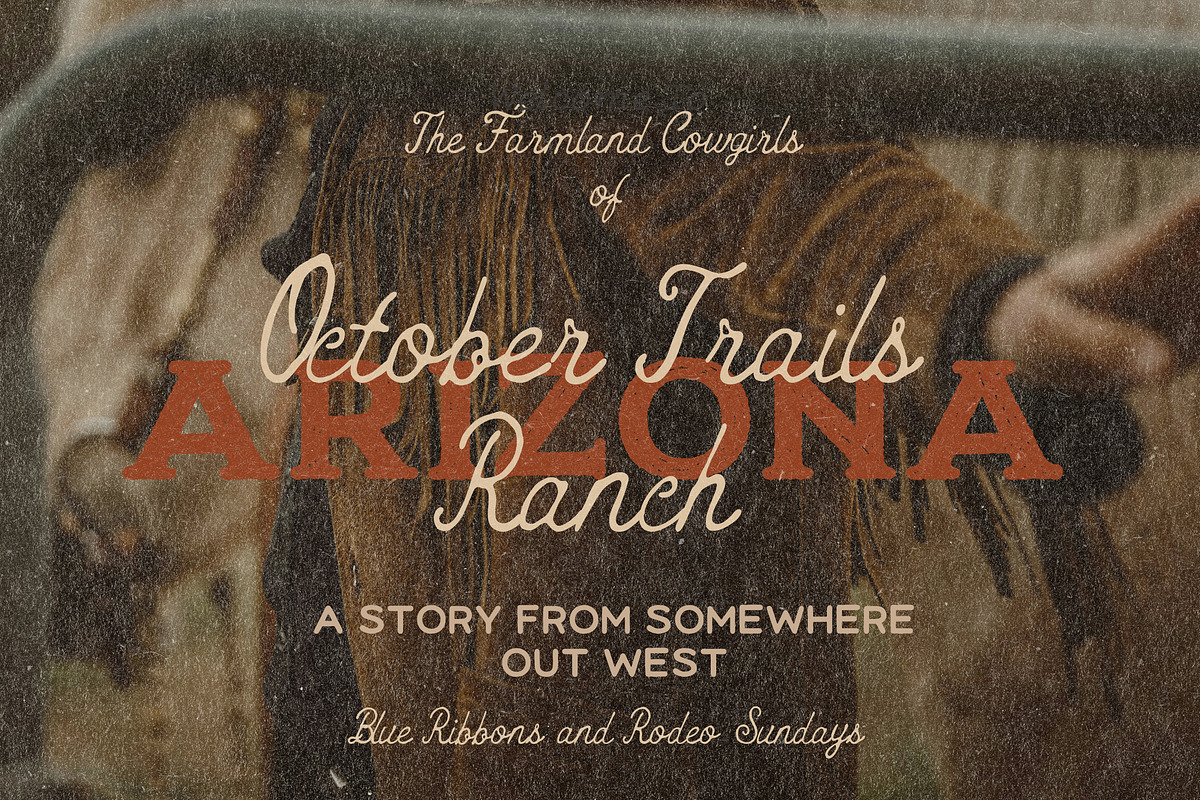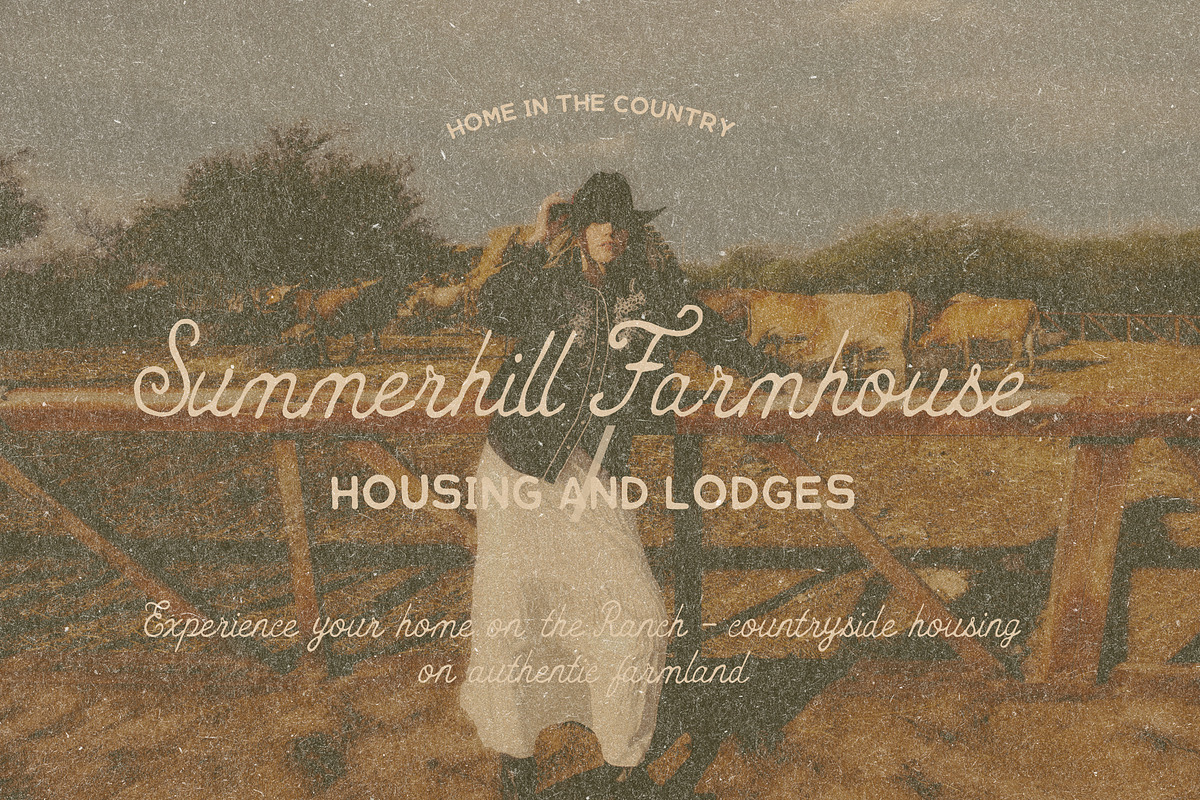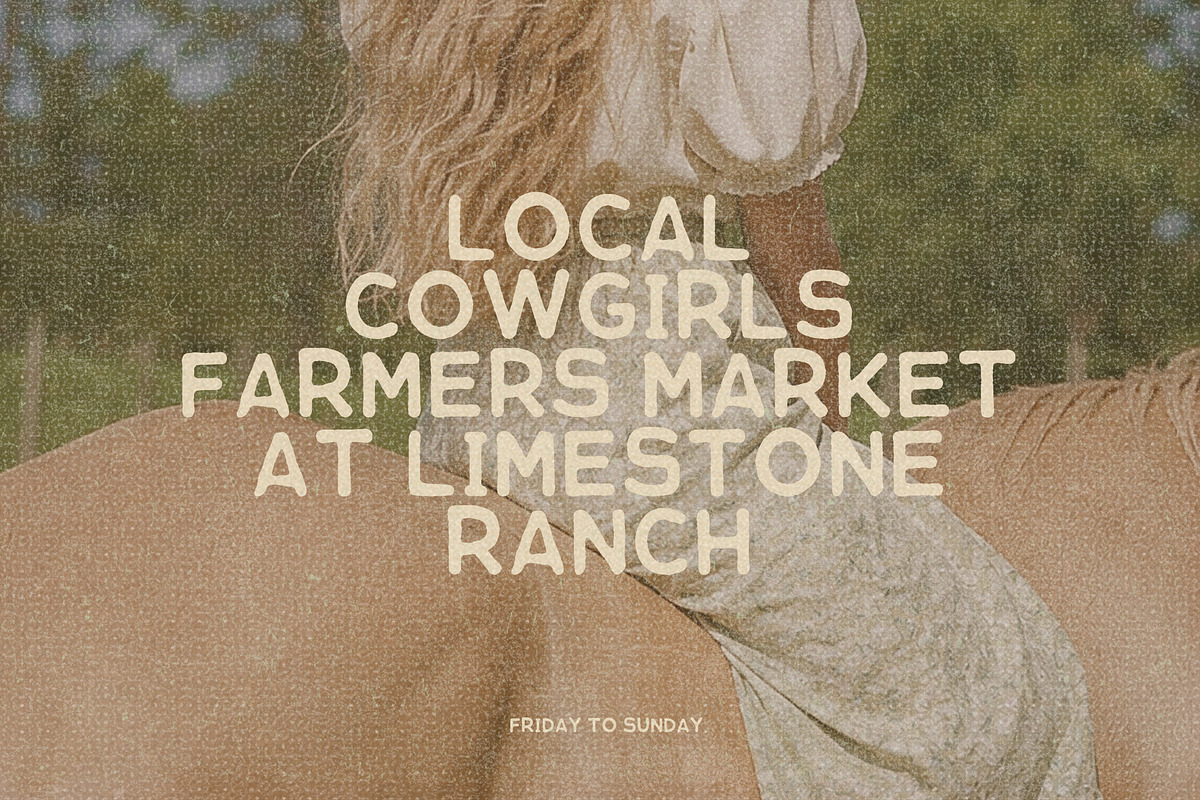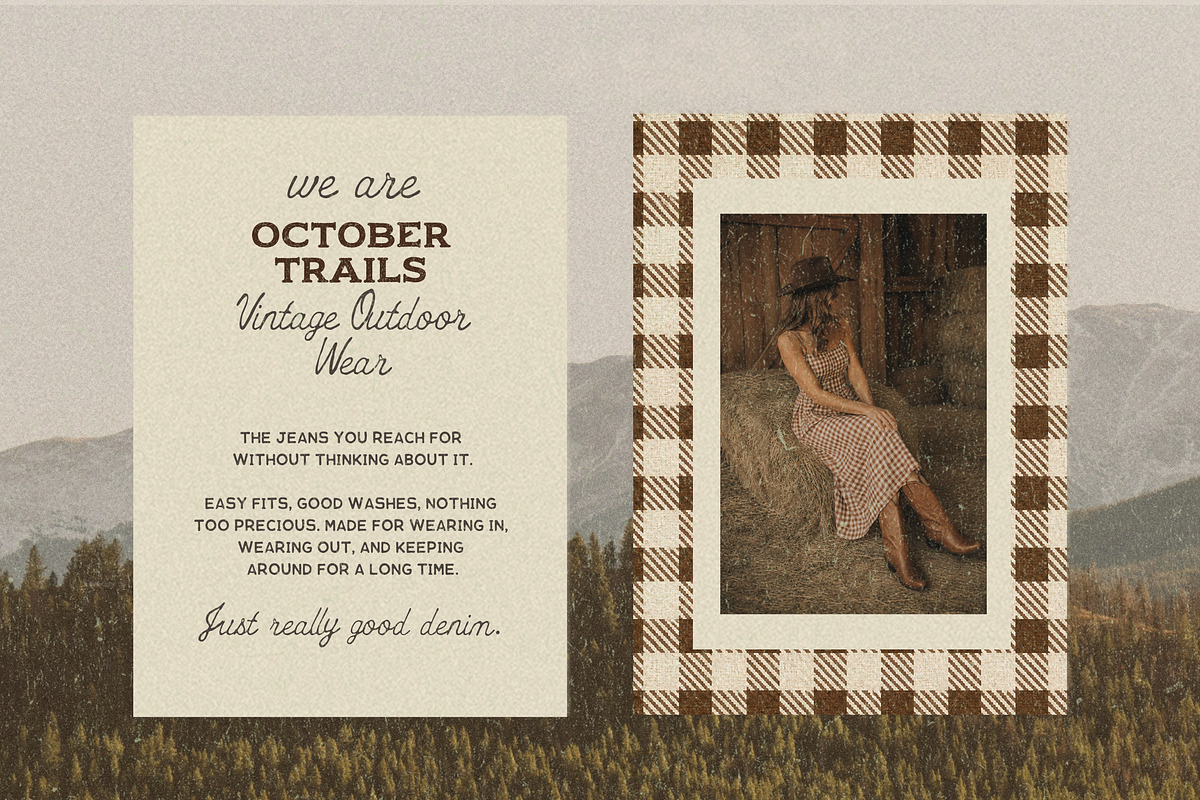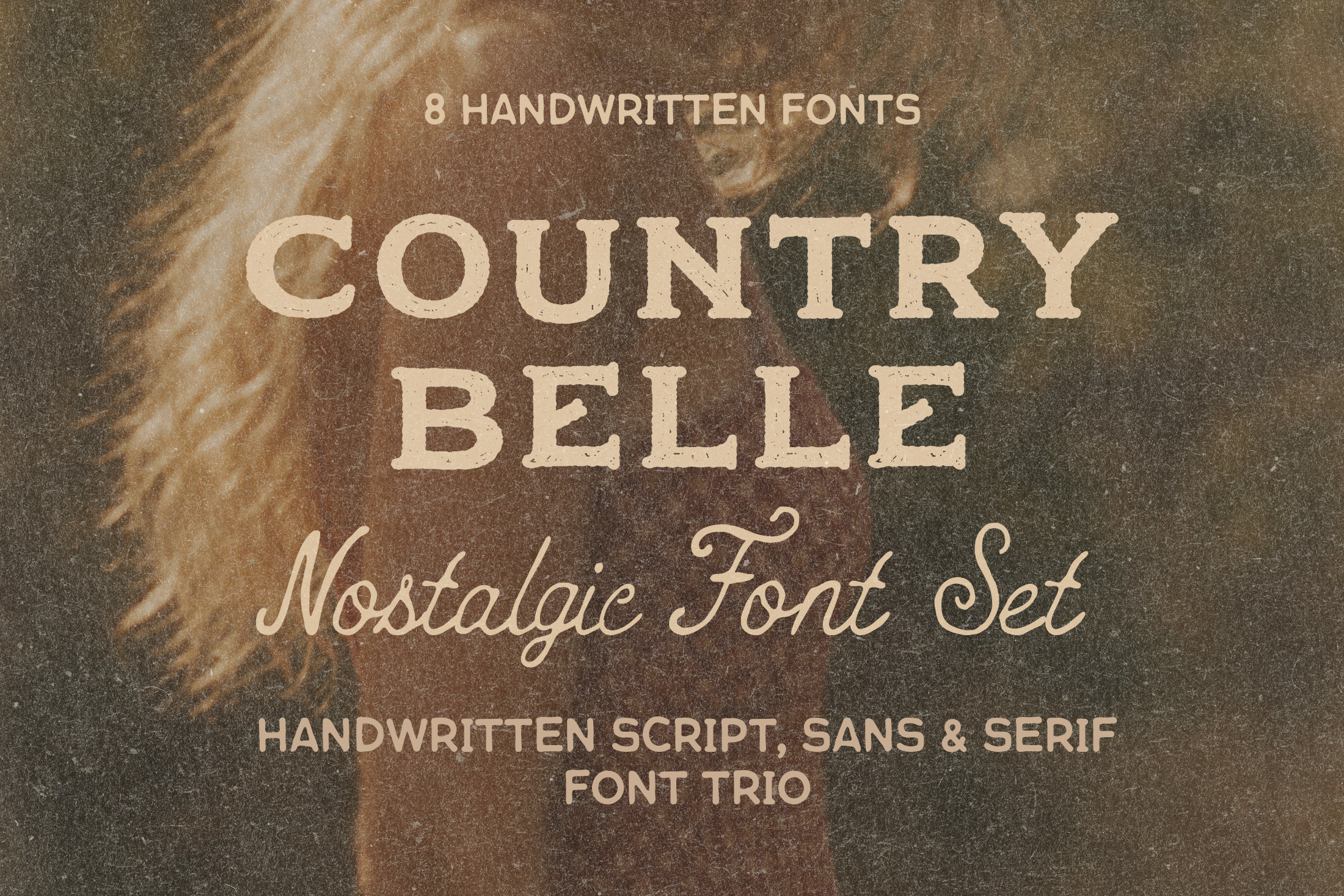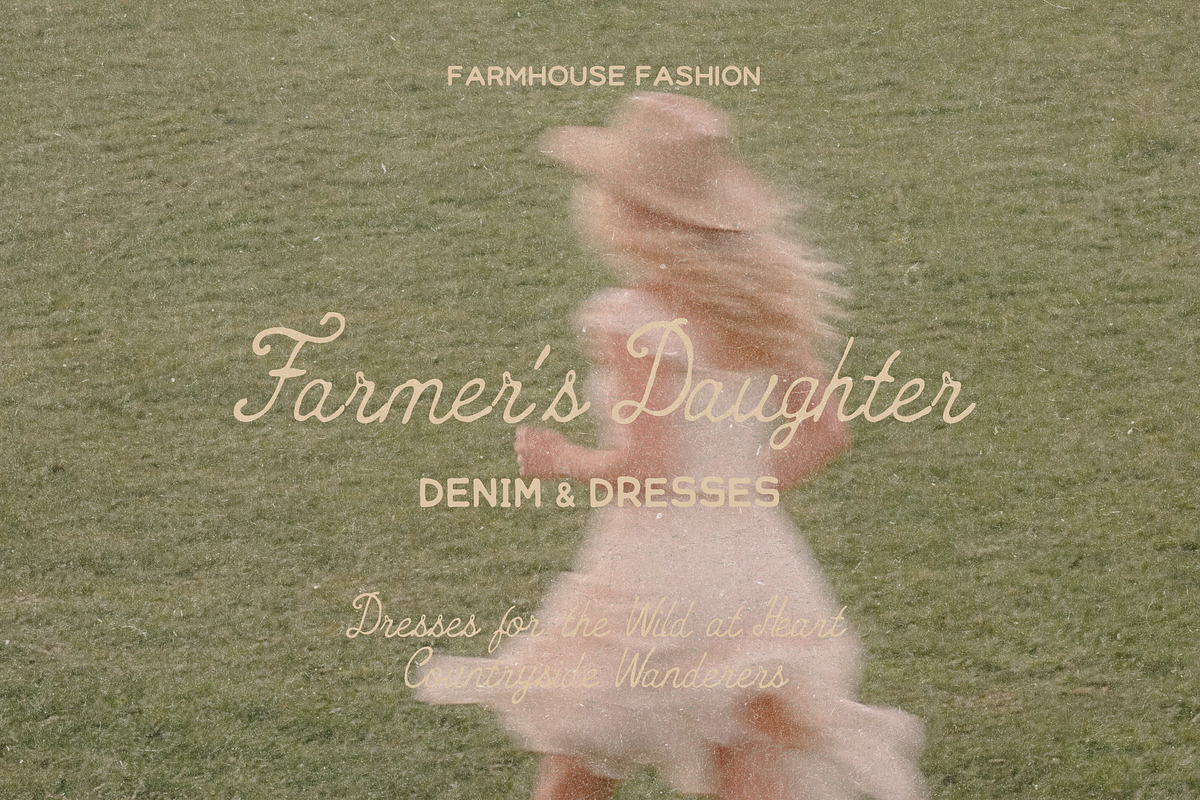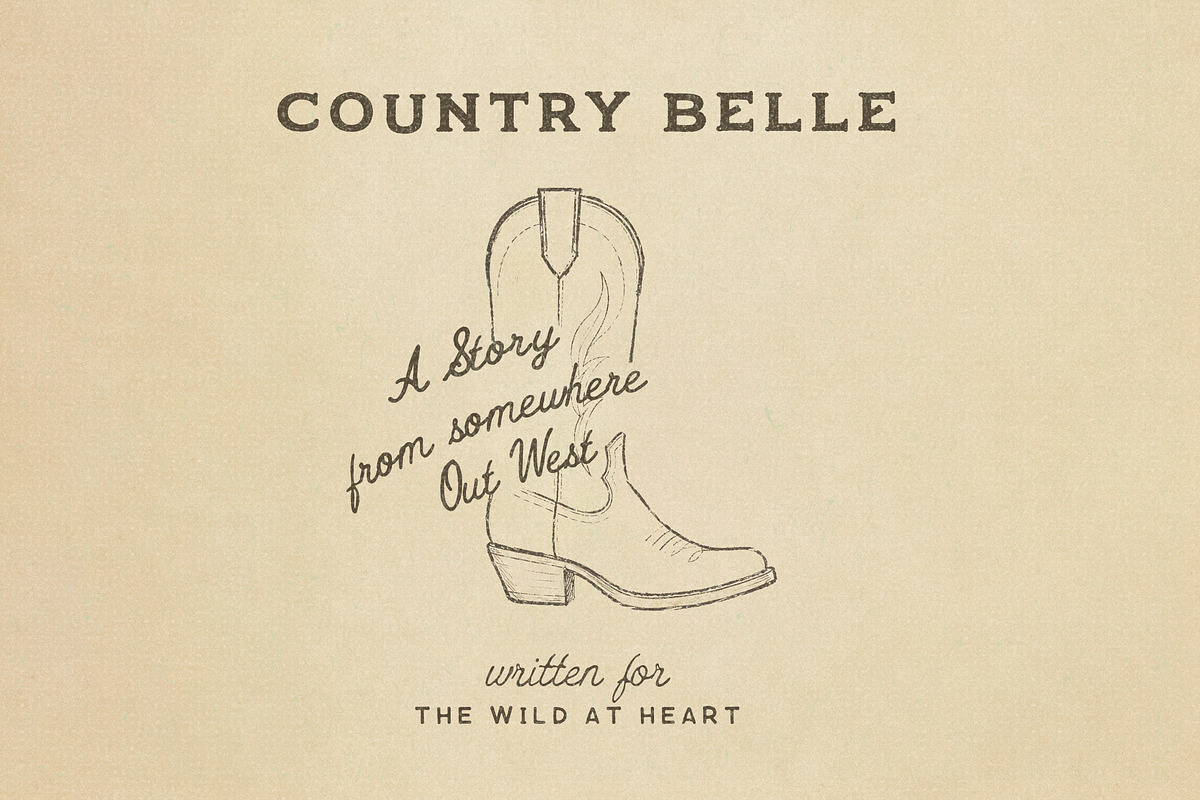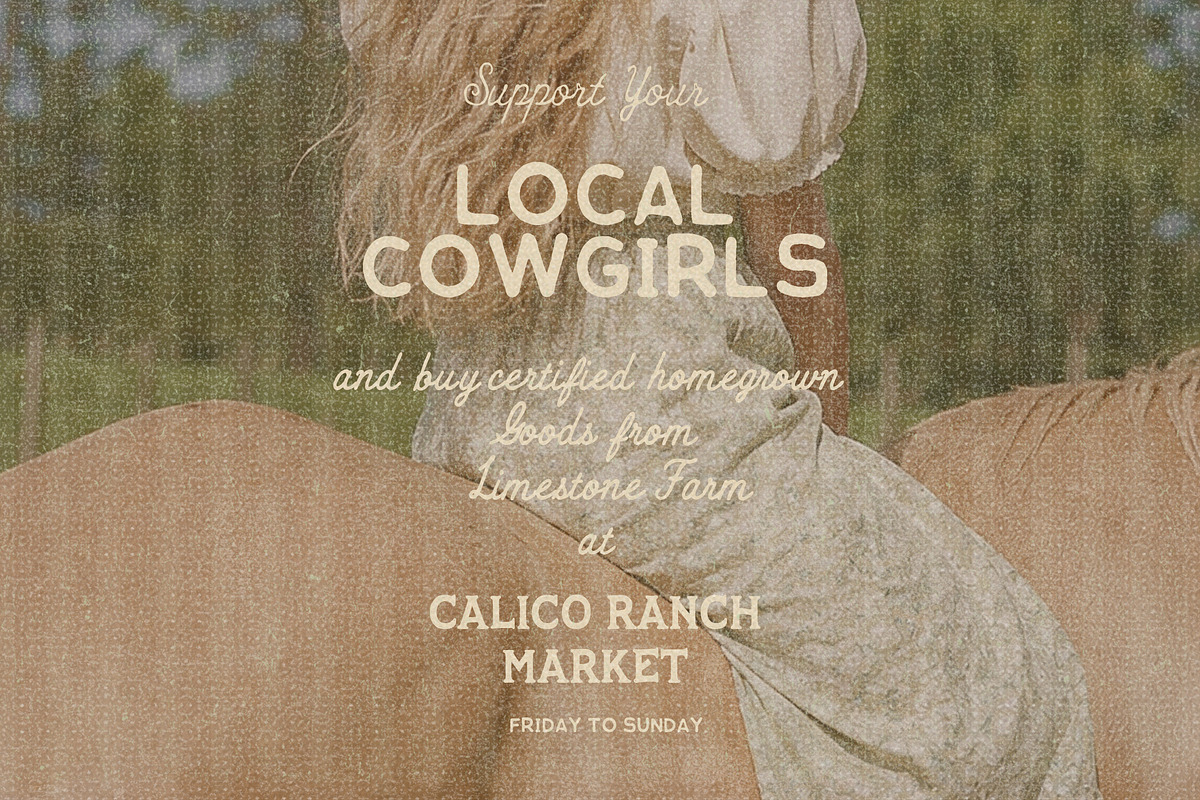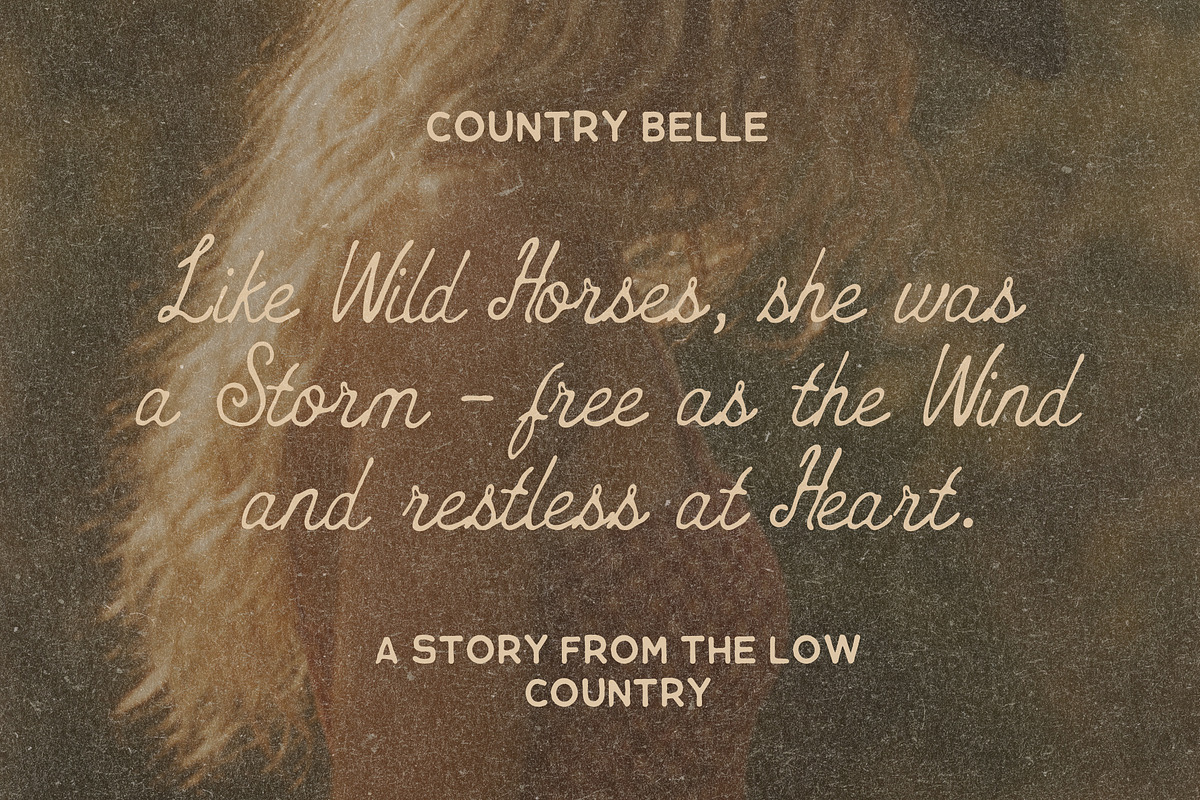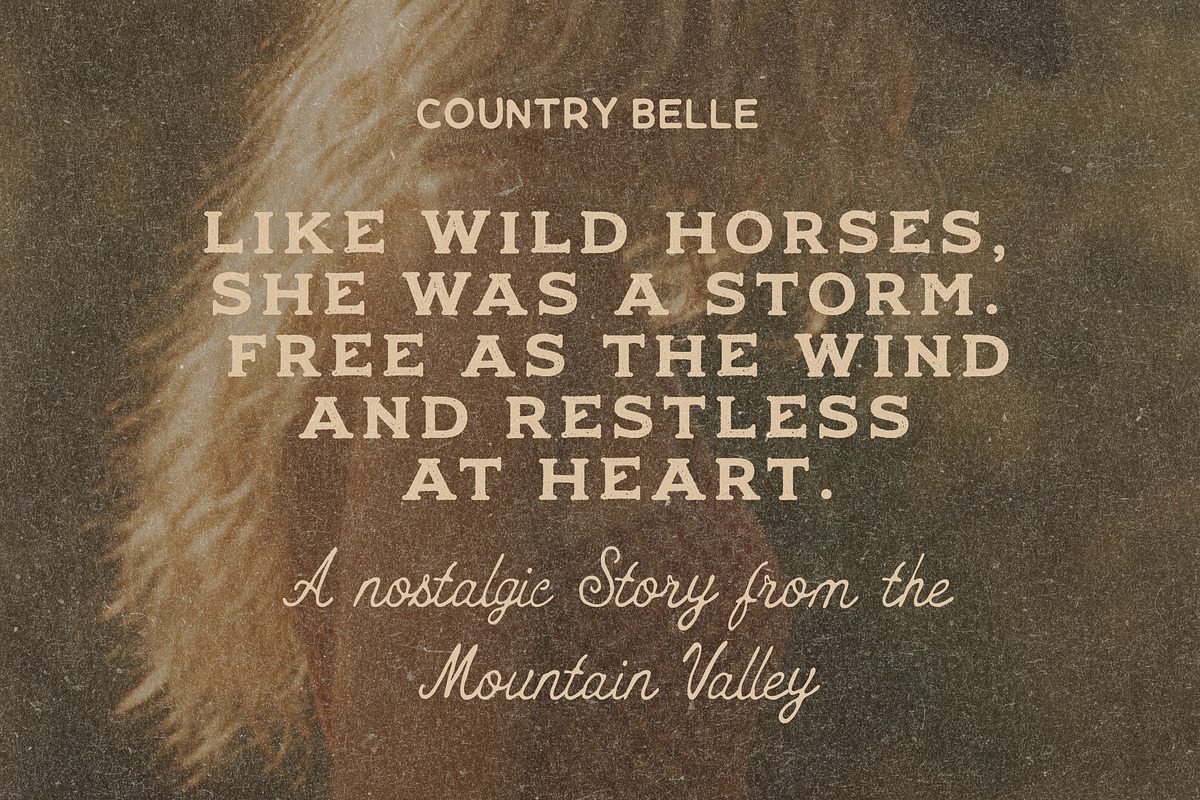
Rustic Handwritten Western Font Trio
Welcome Country Belle, a versatile font trio inspired by the nostalgia of the countryside, vintage farm signs, country stores, ranch life and the dreamy vintage aesthetic of rural farm living.
The family includes a script font, serif font and sans serif font, designed to work together across branding, packaging, editorial design, logos, social media, signage and print. With several weights and plenty of contrast between styles, Country Belle can move from soft and feminine to bold, rustic and confident in seconds.
Its style sits somewhere between Americana, western, farmhouse, vintage, rustic, feminine and nostalgic - with enough restraint to feel contemporary rather than overly themed.